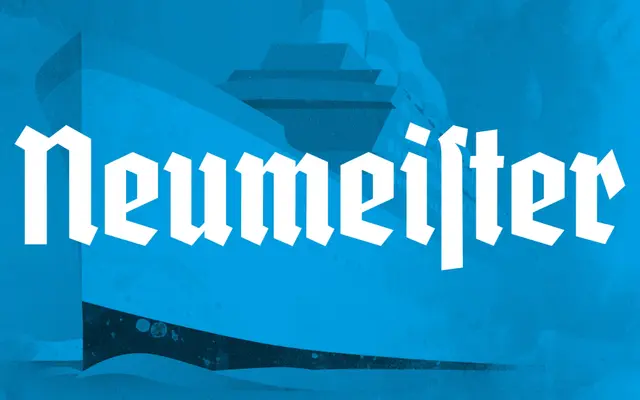
FDI Neumeister
FDI Type Foundry · Ludwig Wagner type foundry, Ralf Herrmann · 2021
A free revival of a 1930s Ludwig Wagner blackletter, released in two variants covering traditional German typesetting and modernised international use.
Revived by Ralf Herrmann and released under the Open Font License, FDI Neumeister draws on the Deutschmeister family originally cut at the Ludwig Wagner type foundry in the 1930s. The family splits into two styles: Neumeister A preserves the traditional blackletter character, while Neumeister B offers a modernised approach with improved legibility for non-German contexts. Around 400 glyphs cover Western, Eastern and Central European Latin, with alternative glyphs accessible via OpenType-savvy applications.
A revival of a 1930s blackletter from the Ludwig Wagner type foundry, offering both a traditional variant and a modernised variant for improved legibility in international contexts.